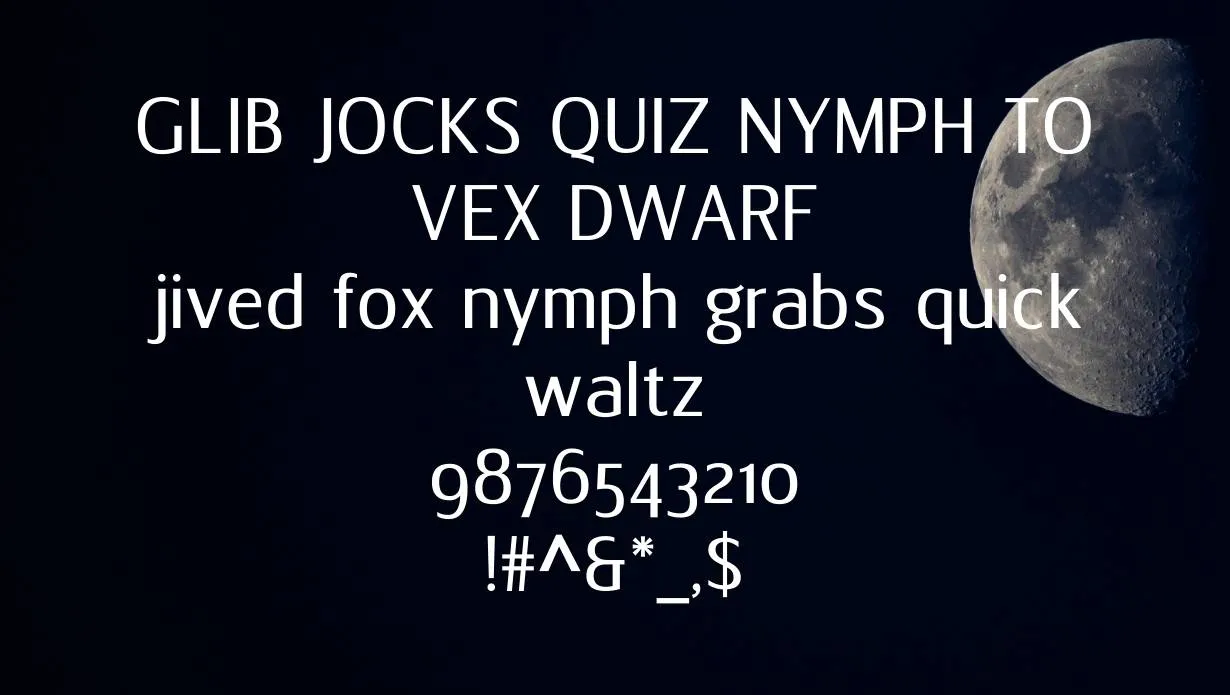
Florid Font is a sans-serif typeface that was designed by Rudolph Ruzicka in 1936. The font is named after the state of Florida, where it was first used. Florid Font has a unique look that makes it stand out from other fonts. It is characterized by its thick strokes and thin serifs. This font is most commonly used for headlines and titles.
The glyph of this font is quite simple and it does not have any unique features. The main aim of this font is to be easily readable. This is why it is often used in newspapers and magazines. The font can be downloaded for free from the internet.
Who Used Florid Font?
This typeface has been used by many famous brands. It is also one of the most popular fonts on the internet. Many people use this font for their website headers and titles.
Florid Font Family Appearance
| Name | Florid Font |
| Designer | Rudolph Ruzicka |
| Style | Sans Serif |
What are some of the most popular variations of the Florid Font?
Some of the most popular variations of this font include Florid Sans, Florid Serif, and Florid Script. Each of these fonts has a unique look that makes it ideal for different purposes.
How long has the Florid Typeface been around?
The Font has been around for over 10 years. It is one of the most widely used typefaces, with over 10 variations.